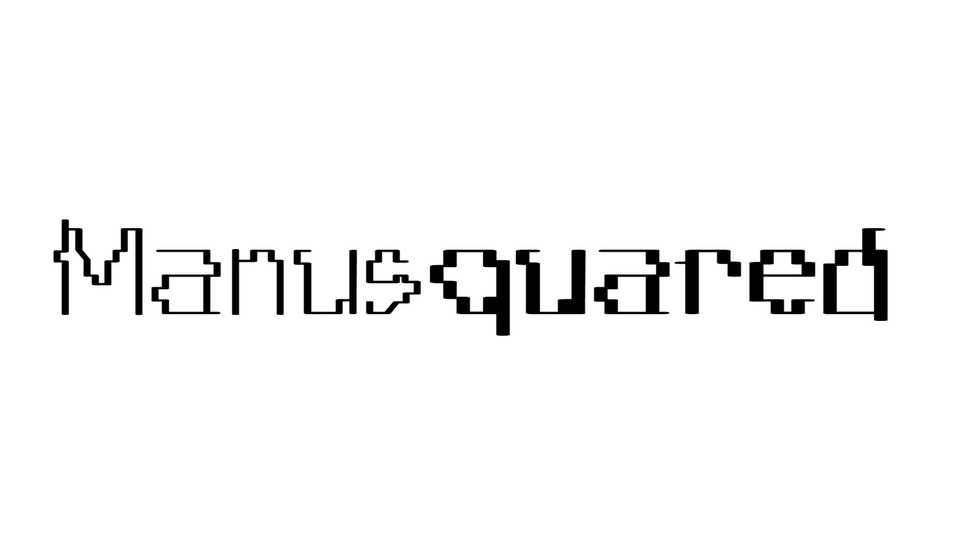
Download Manusquared typeface, a display font family in two weights built around the computational interpretation of a handwriting. The imperfection of the manual gesture and the meeting of a strict grid create an amazing result.
Designer: Quentin Juhel